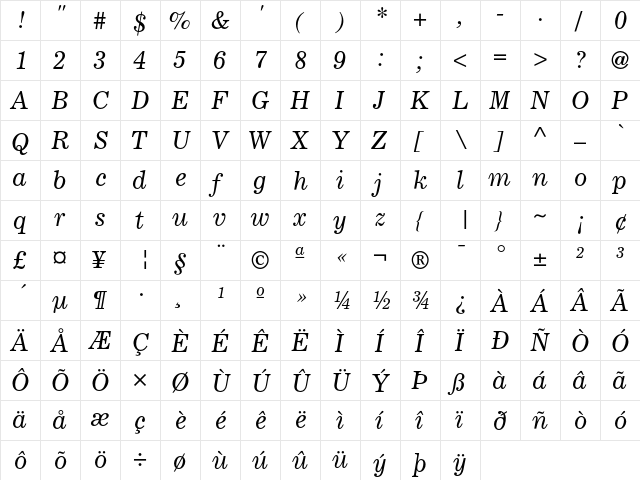
Corona Italic
Design Context for Corona Typeface
Corona offers clean, dependable letterforms without strong stylistic allegiance, making it a practical choice for designers who need flexibility. Its italic angle brings a sense of urgency and motion to the letterforms.
Pro Tip: Try Corona for annotation and caption copy alongside an upright companion — the contrast in angle creates a dynamic but ordered typographic system.